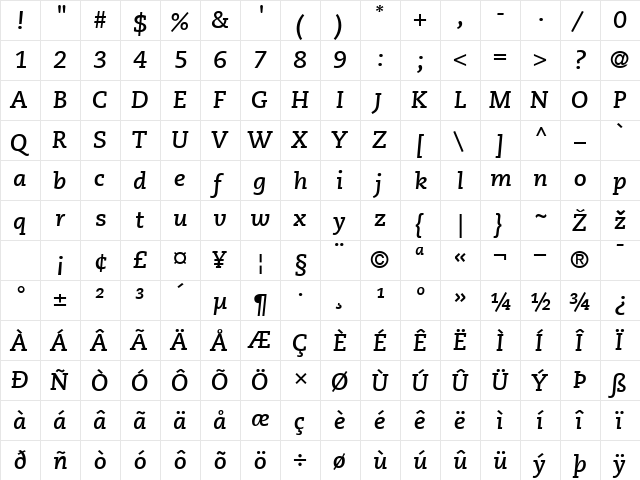
Caecilia LT BoldItalic Regular Font Preview
Design Context for Caecilia LT BoldItalic Typeface
Caecilia LT BoldItalic offers clean, dependable letterforms without strong stylistic allegiance, making it a practical choice for designers who need flexibility. The slanted form adds forward momentum and visual energy. Its bold stroke weight gives it real presence on the page.
Pro Tip: Try Caecilia LT BoldItalic for annotation and caption copy alongside an upright companion — the contrast in angle creates a dynamic but ordered typographic system.